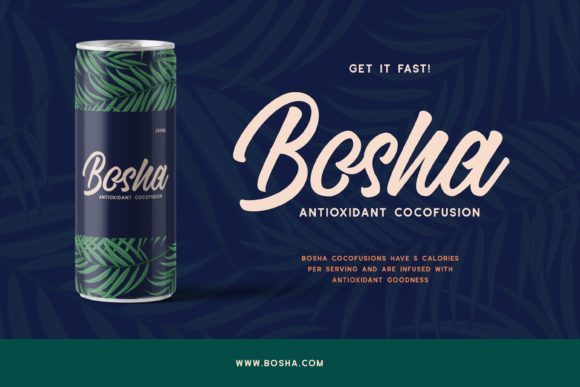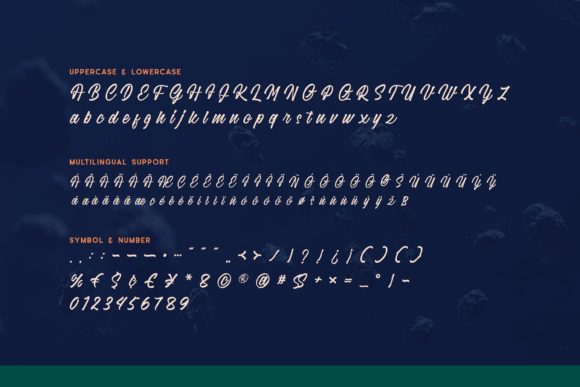
Introduction to Justoma Font
Have you ever stumbled upon a font that perfectly captures the essence of your creative vision? For many designers, this moment is a game-changer. It’s the spark that ignites a new idea, a fresh perspective, or a bold statement. And that’s exactly what happens when you discover the Justoma Font. This charming display font is a treasure trove of creative possibilities, waiting to elevate your design projects to the next level.
With its playful curves and authentic feel, Justoma Font is the perfect addition to any design resource. Whether you’re working on a logo, apparel, or photography project, this high-quality font is sure to bring a touch of magic to your work. And the best part? It’s available for free download, making it an accessible and valuable resource for designers of all levels.
Key Features of Justoma Font
- High-quality, free download font ideal for creative projects
- Unique, hand-drawn design elements with a transparent background
- Perfect design resource for graphic designers, illustrators, and artists
- Resolution-independent, scalable font suitable for various print and digital applications
Honest Review: Justoma Font
I recently came across the Justoma Font, and I must say it’s an interesting addition to my design resource library. This free download caught my attention due to its unique and creative style, perfect for a design project that needs a touch of personality.
Here’s what works well with the Justoma Font: ✨
- High-quality design: The font’s intricate details and smooth lines make it suitable for both digital and print materials.
- Transparent background: This feature allows for seamless integration with other design elements, giving you more flexibility in your creative project.
- Easy to read: Despite its creative style, the font remains legible and easy to read, even in smaller text sizes.
However, there are some limitations to consider: ⚠️
- Limited character set: The font’s character set is not extensive, which may limit its use in certain projects.
- Not ideal for body text: While the font is great for headings and titles, it may not be the best choice for body text due to its complexity.
Overall, the Justoma Font is a great addition to any designer’s library, offering a unique and creative touch for design projects. While it may have some limitations, its high-quality design and transparent background make it a valuable resource for designers looking to add some personality to their work.
Tips and Use Cases
For optimal results, use the Justoma Font in conjunction with a high-quality image or design element. This font is ideal for creative projects, such as infographics, brochures, or business cards. Its transparent background makes it perfect for layered designs.